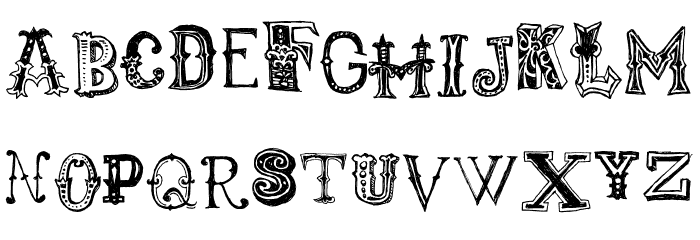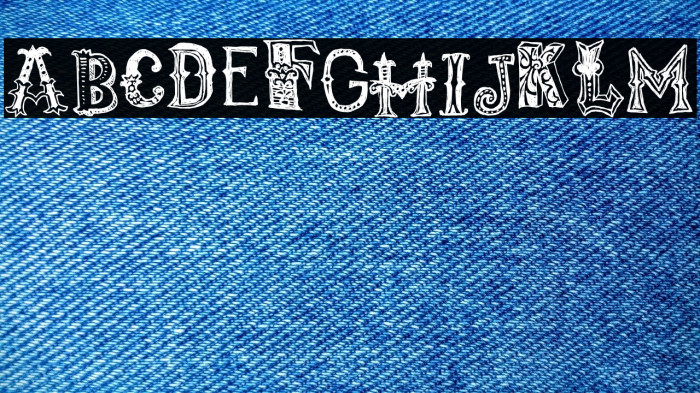
monbijoux Font
This font is a highly decorative and ornate typeface, characterized by intricate patterns and embellishments within each letter. The uppercase letters feature a variety of artistic elements, including floral motifs, geometric shapes, and unique textures that give each character a distinct personality. The font's design is reminiscent of vintage or Victorian styles, with a playful and whimsical touch. It is not uniform in stroke width, with some areas being thicker and others more delicate, adding to its visual interest. The overall appearance is bold and eye-catching, making it suitable for creative and artistic projects where a statement is needed.
An ornate and decorative font with intricate patterns and vintage flair.
- Font: monbijoux
- Proposed Projects: Ideal for use in posters, invitations, book covers, and branding projects that require a vintage or artistic touch.
- Overall Style: Vintage